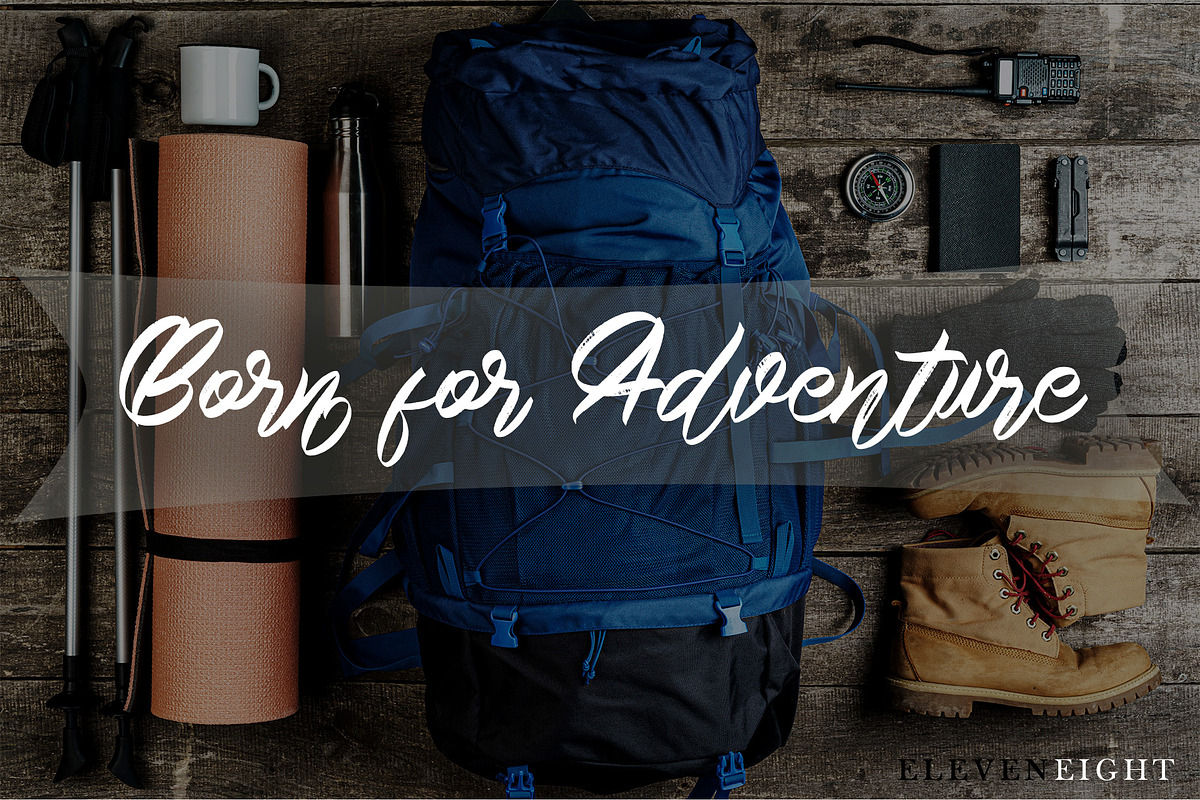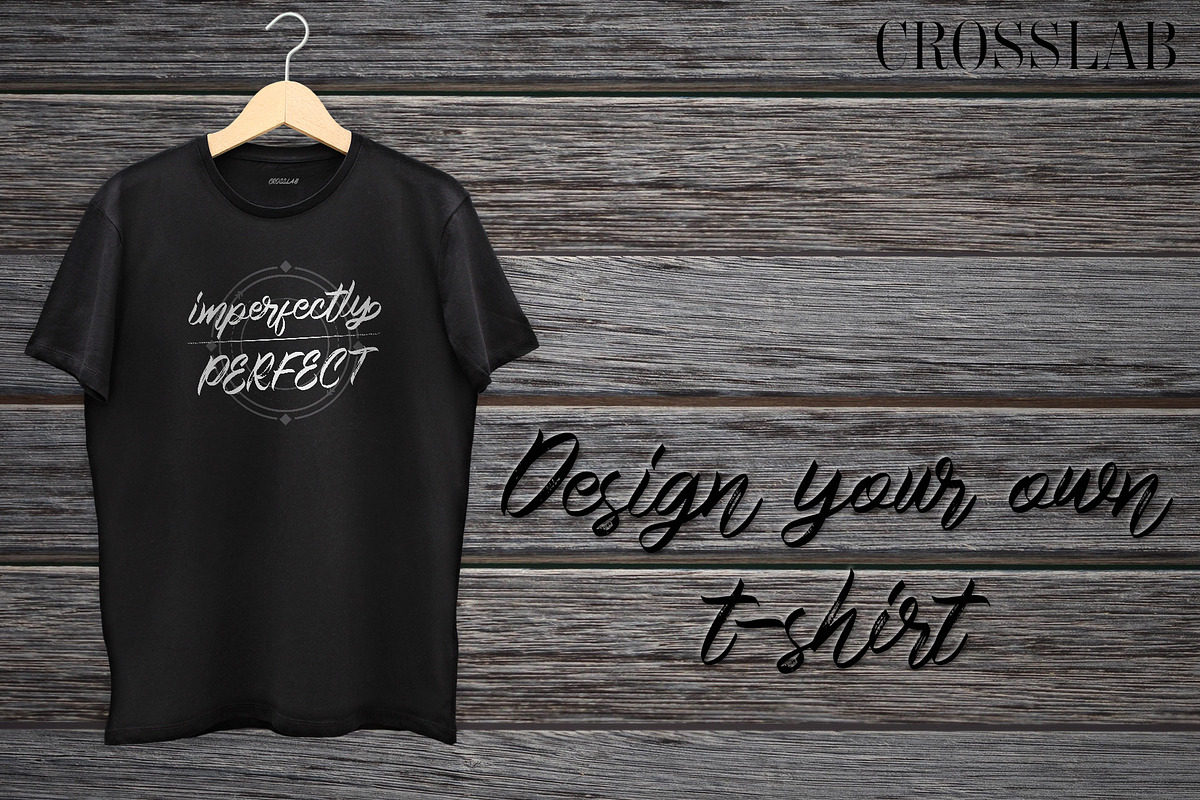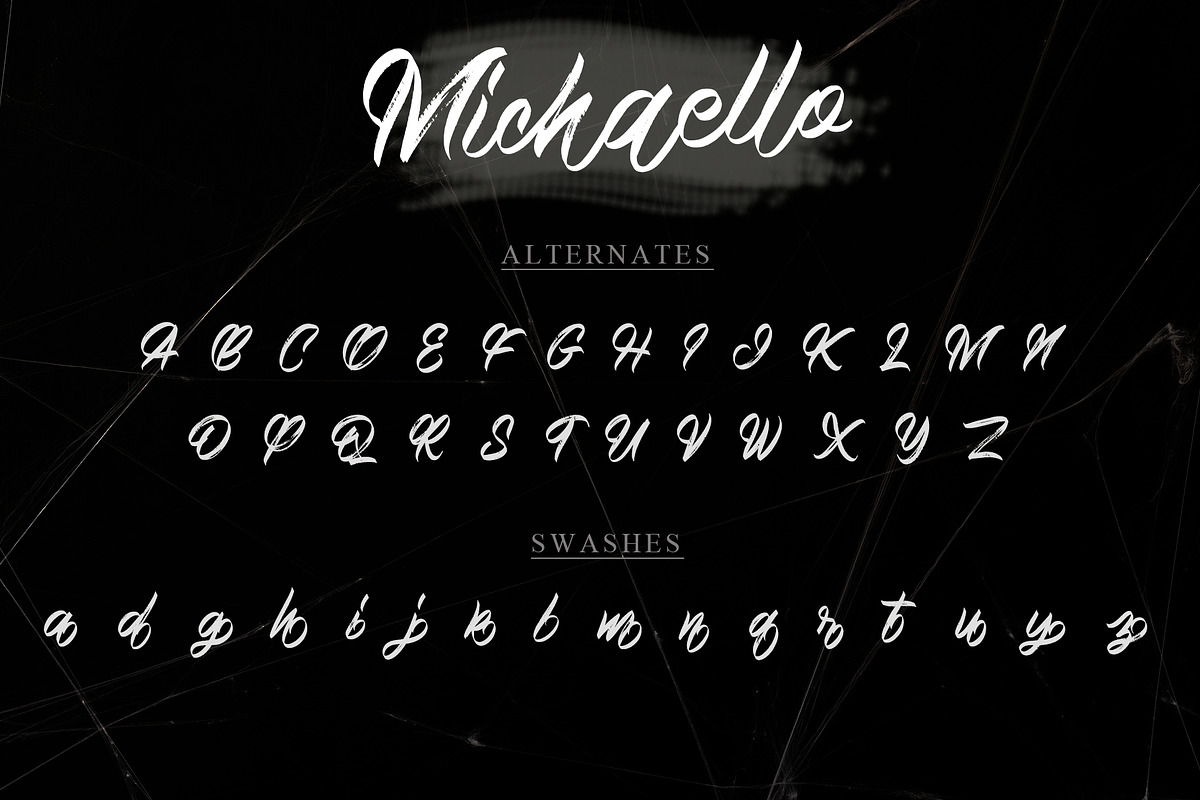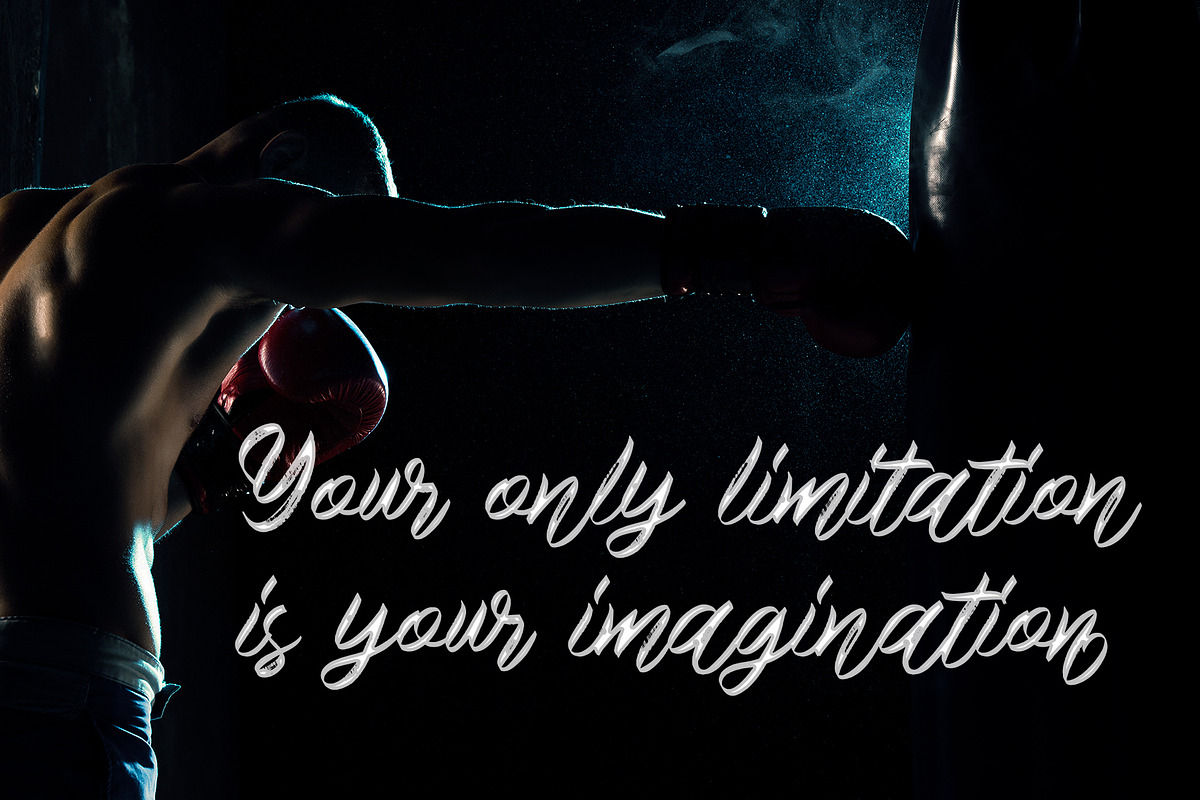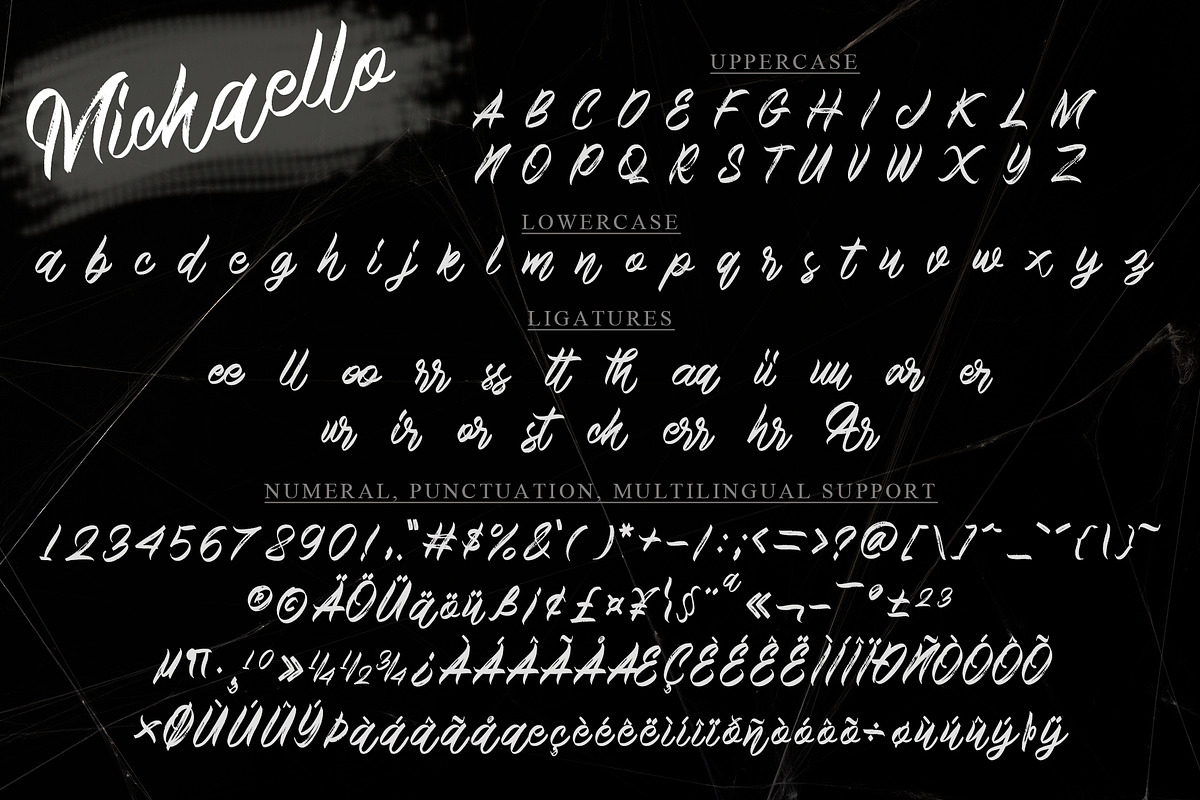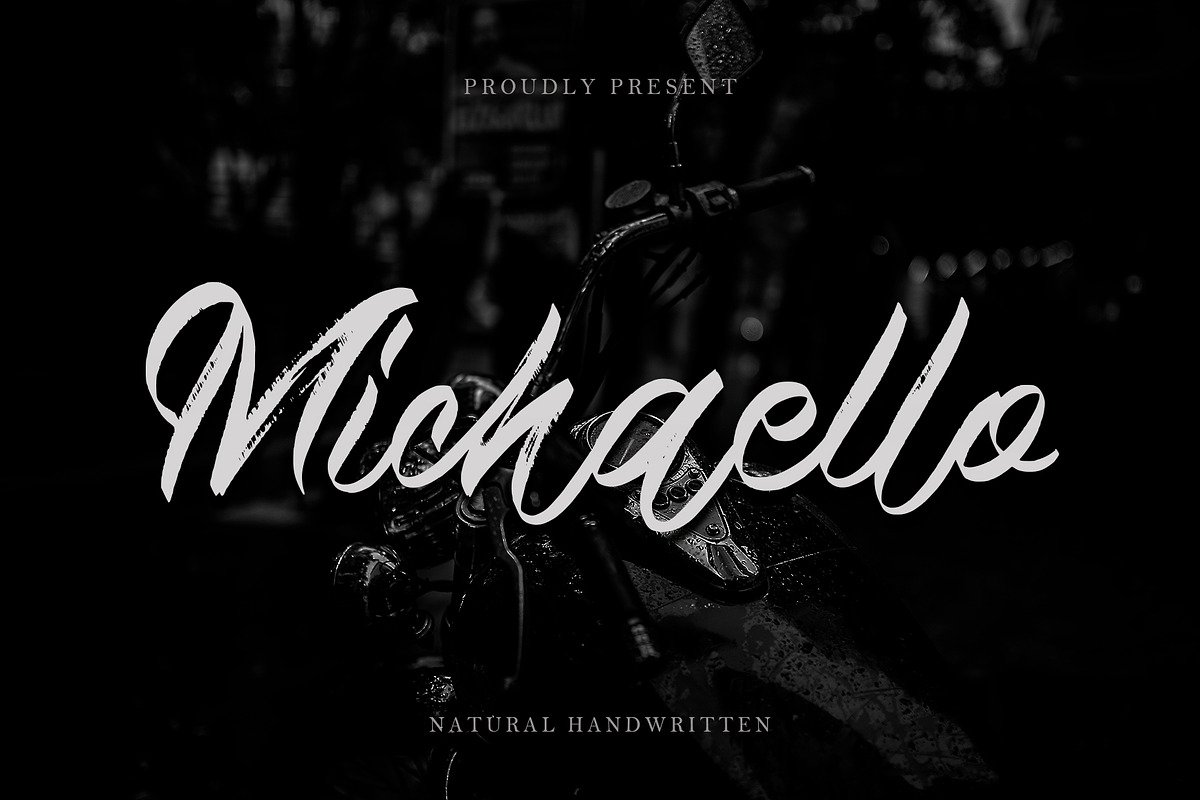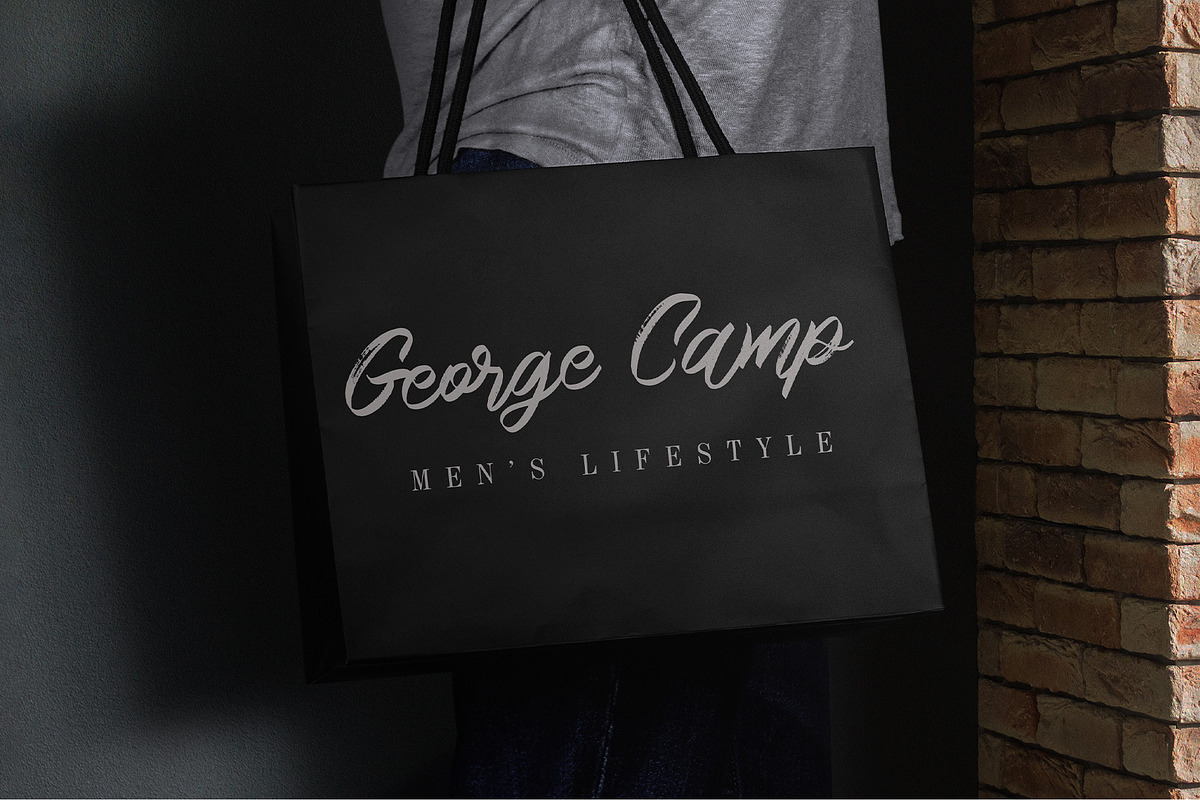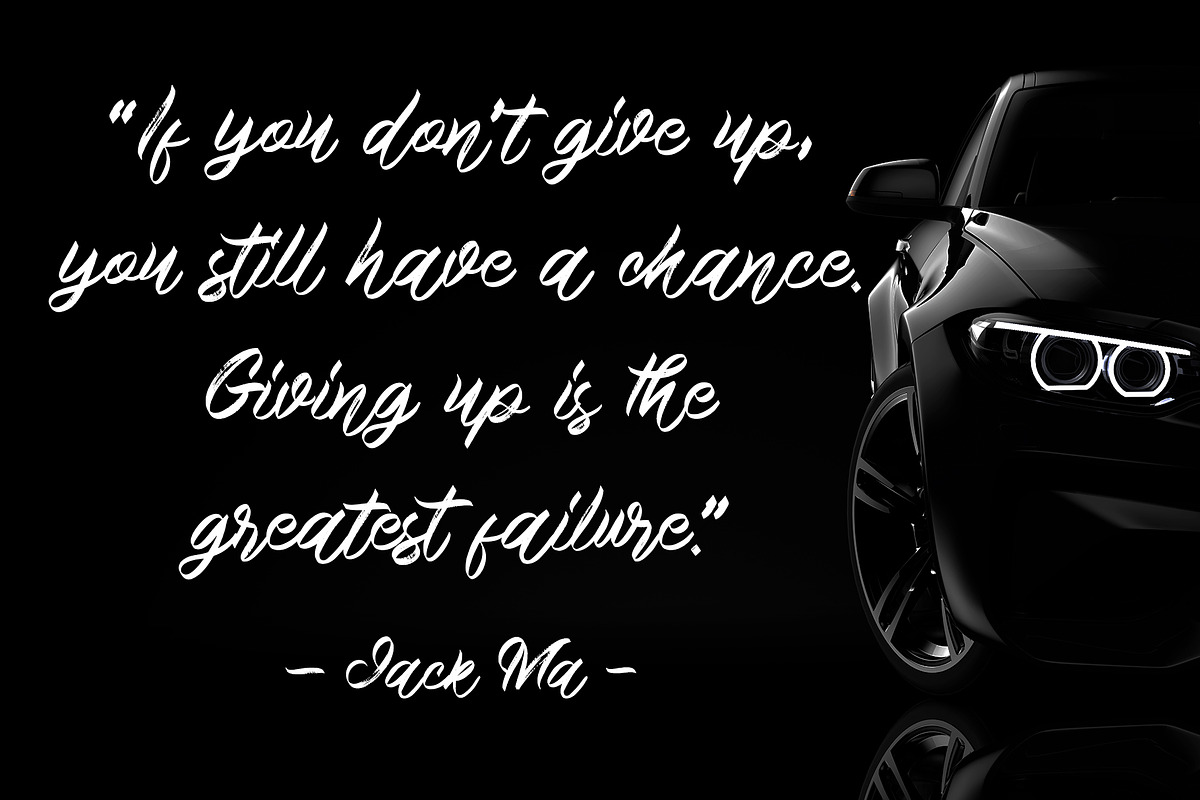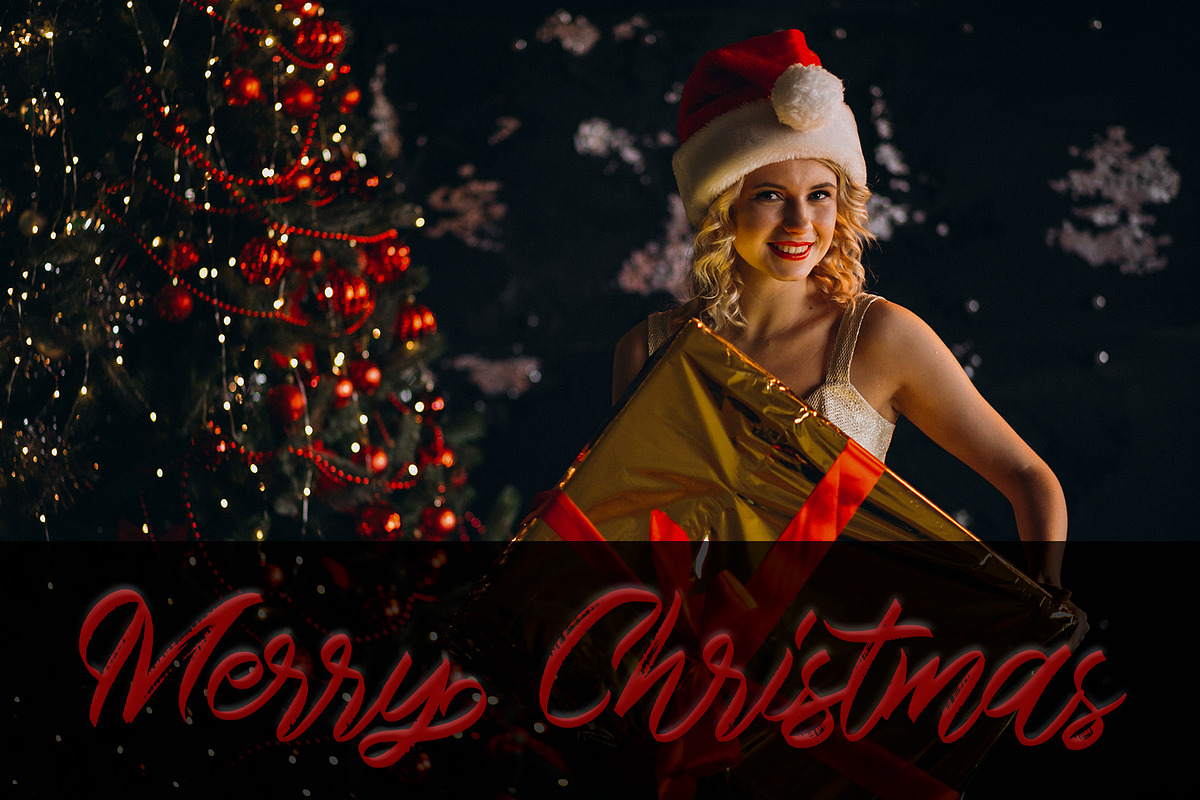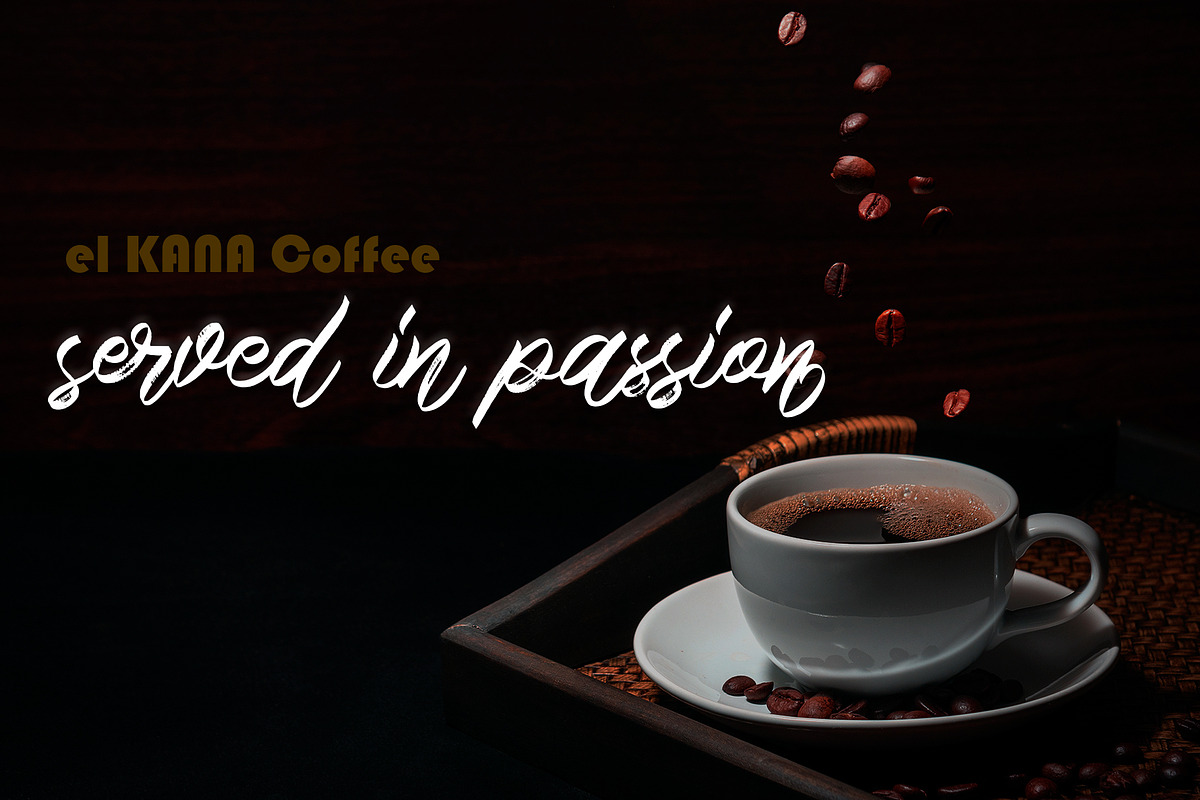
Michaello
Michaello is a casual natural handwritten font with an incredibly friendly feel and a stunning brush texture with a bold vibe. It is the perfect font for making original and outstanding designs. This font is PUA encoded which means you can access all of the glyphs and swashes with ease!
- Many features: Alternate, Swash, and Ligature
- Support multilingual; ä ö ü Ä Ö Ü ß ¿ ¡